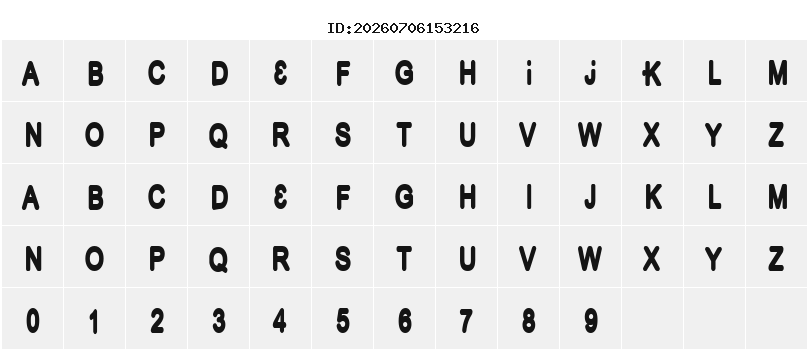
DickieDee Preview
• Font Name: DickieDee
• Full Font Name: DickieDee
• PostScript Name: DickieDee
About DickieDee.ttf
DickieDee.ttf is a modern, elegant sans-serif font designed for ultimate readability and visual harmony. Perfect for branding, headlines, web design, and print materials.